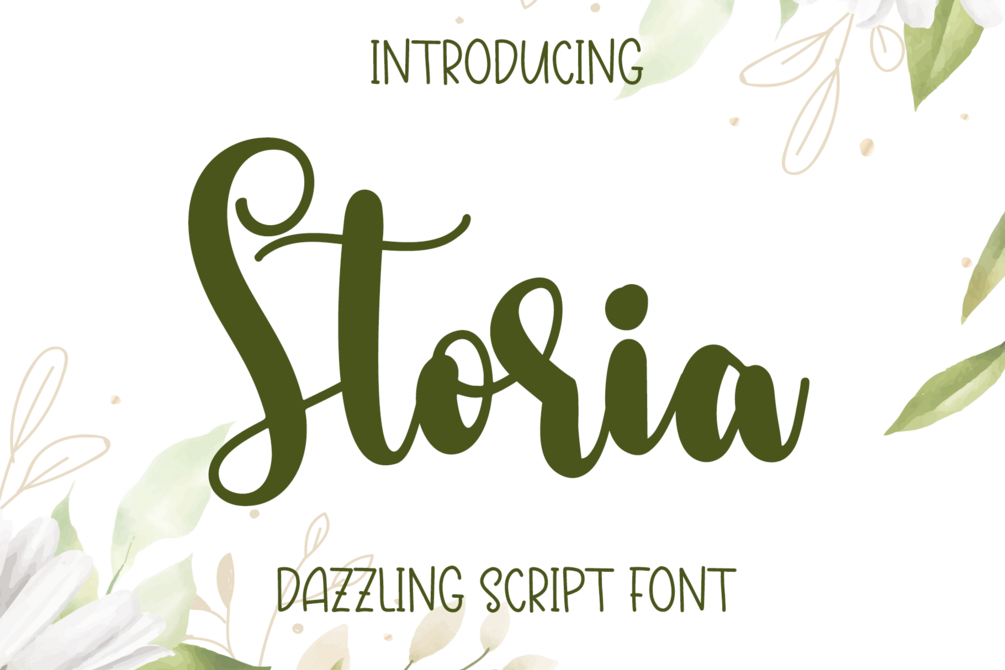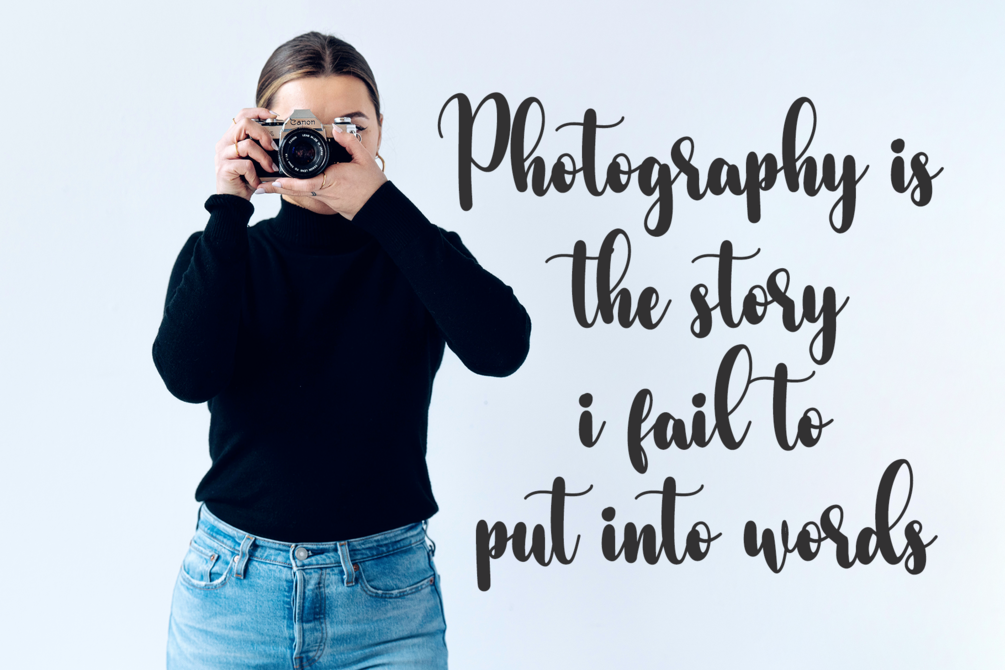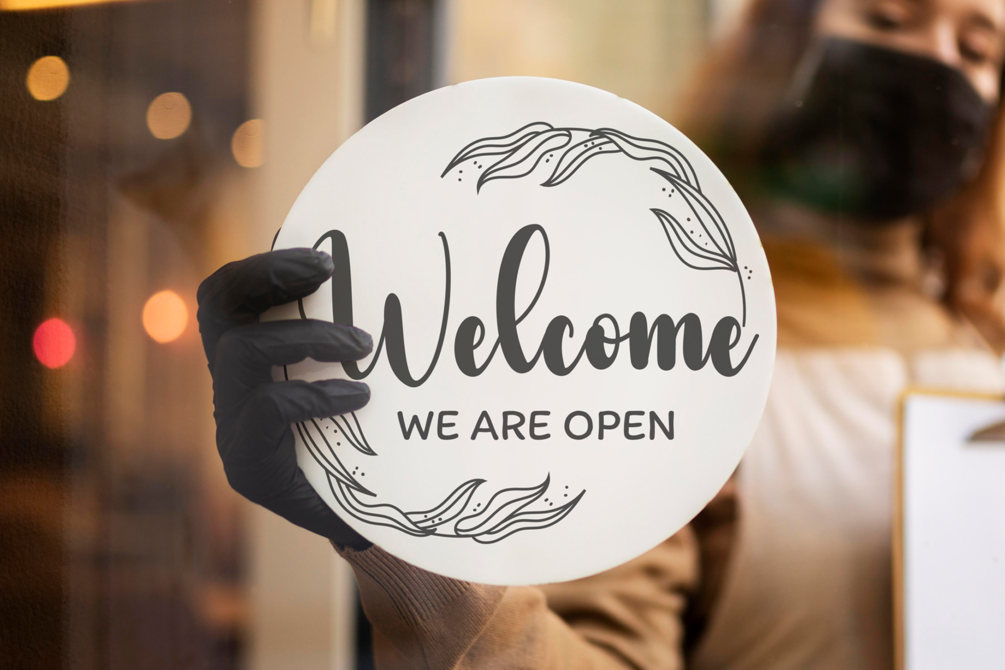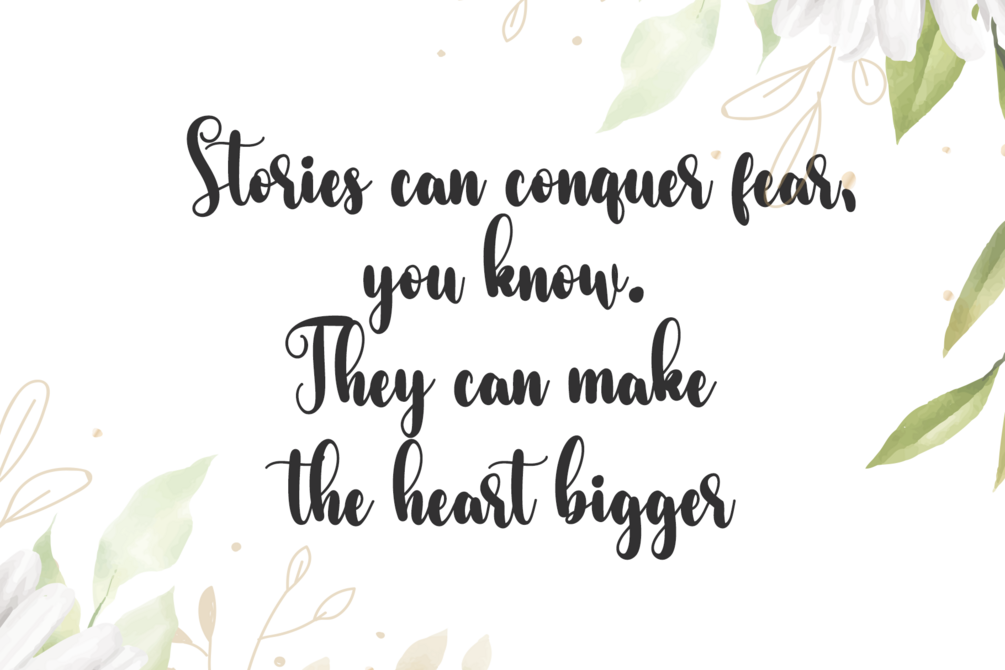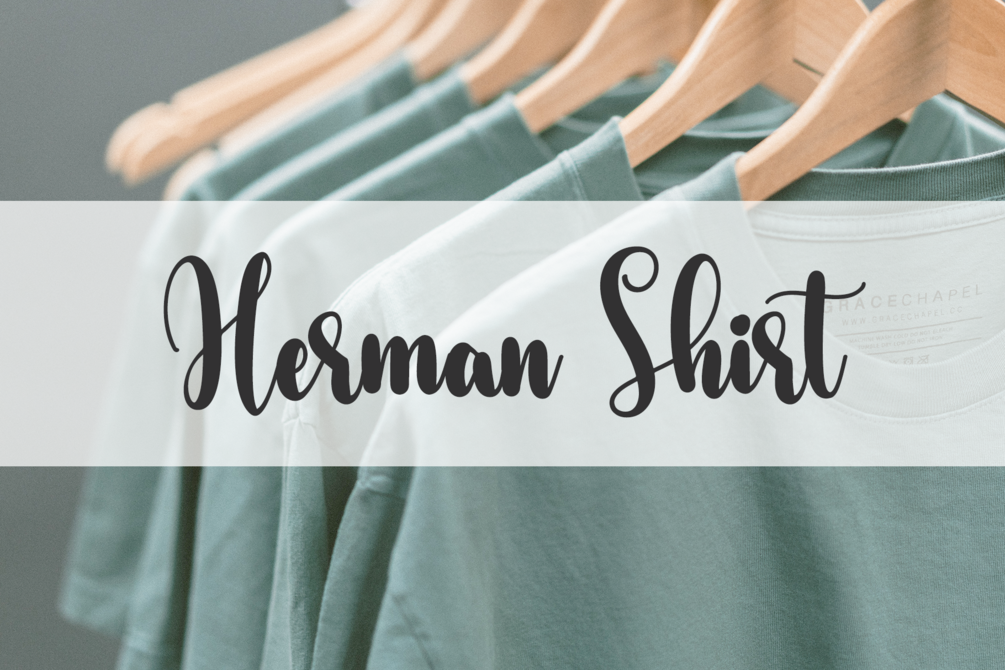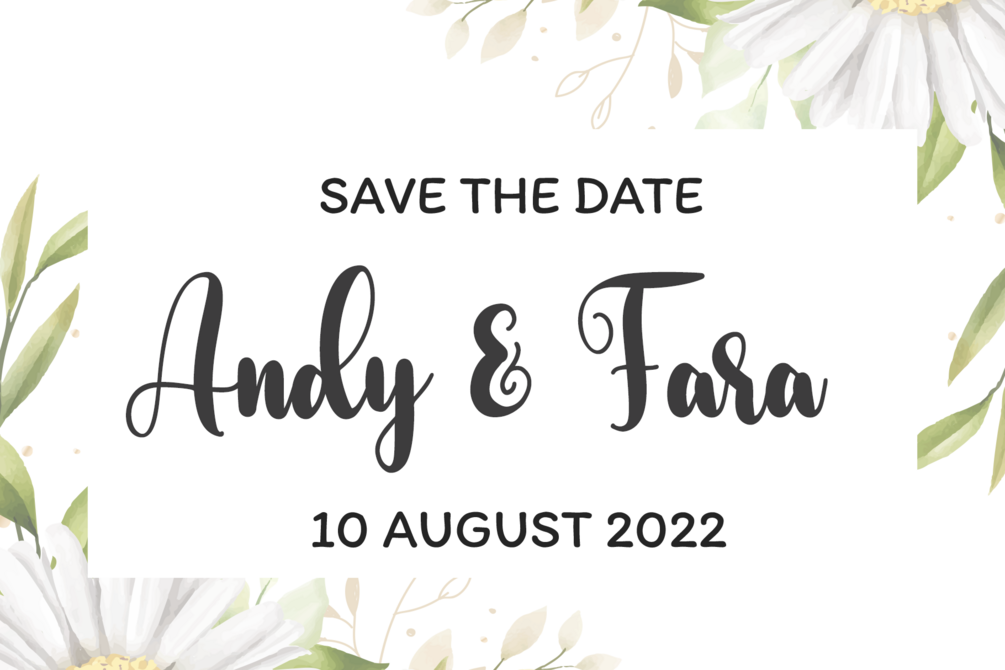
Storia
Storia is a beautiful calligraphy script font that combines romance and elegance in every stroke. Its flowing, hand-lettered style creates characters that gracefully dance along the baseline, giving your designs a soft and charming touch.
Perfect for wedding invitations, logos, branding projects, greeting cards, quotes, social media posts, and more, Storia adds a timeless and sophisticated feel to any creative work.
- Ligatures & Alternates for stylish combinations
Let your words come to life with Storia, a romantic calligraphy font designed to bring warmth, beauty, and elegance to your projects.